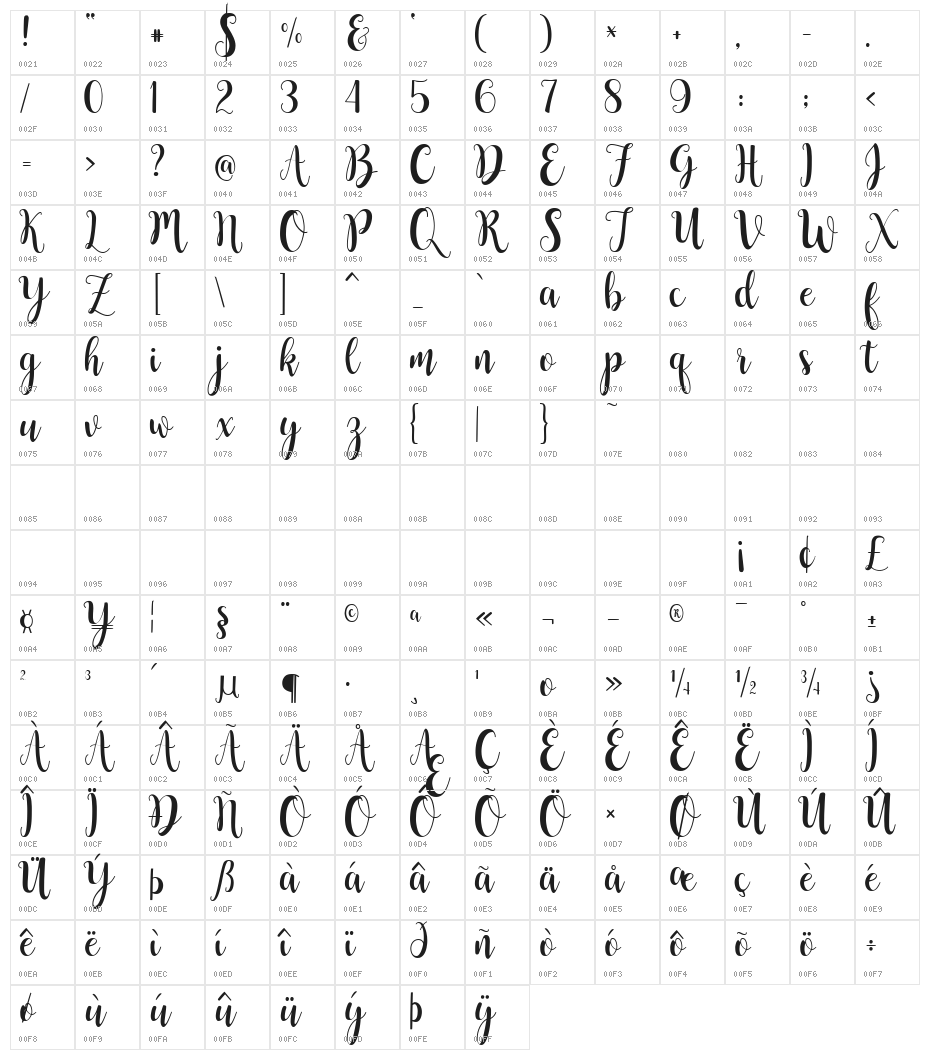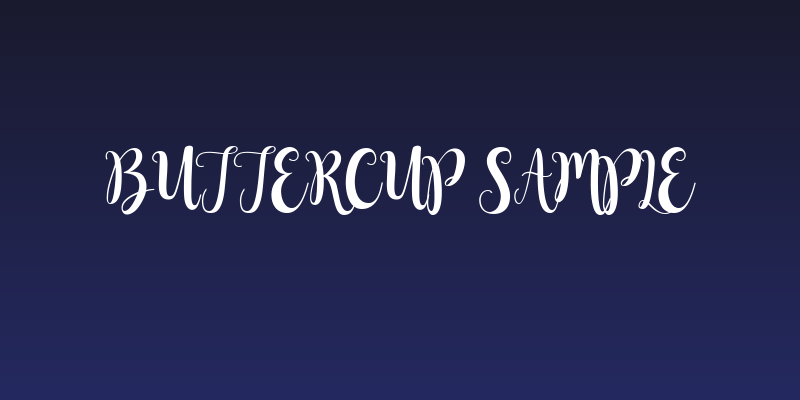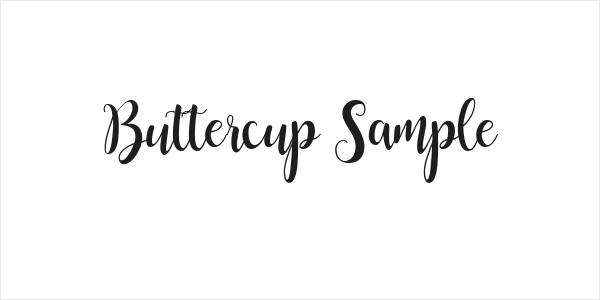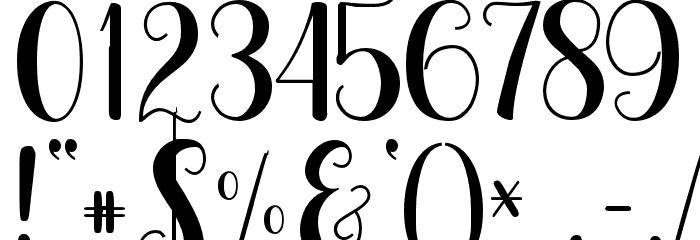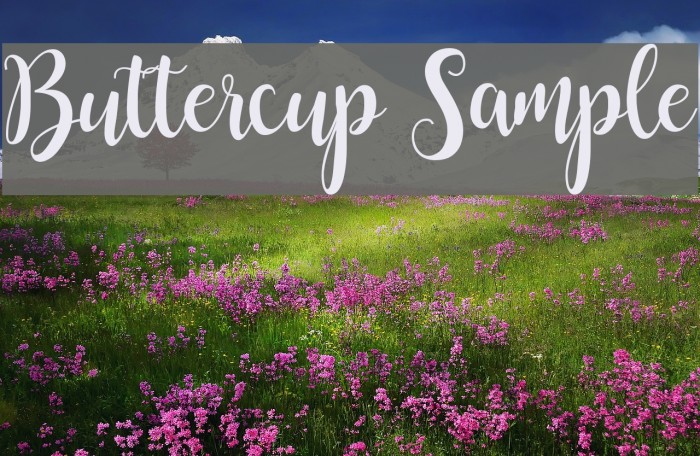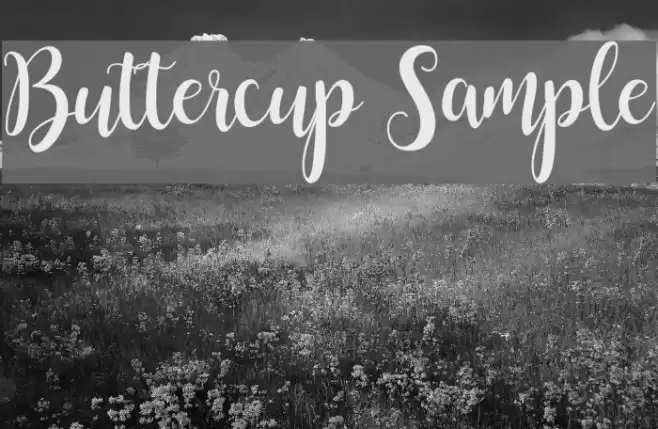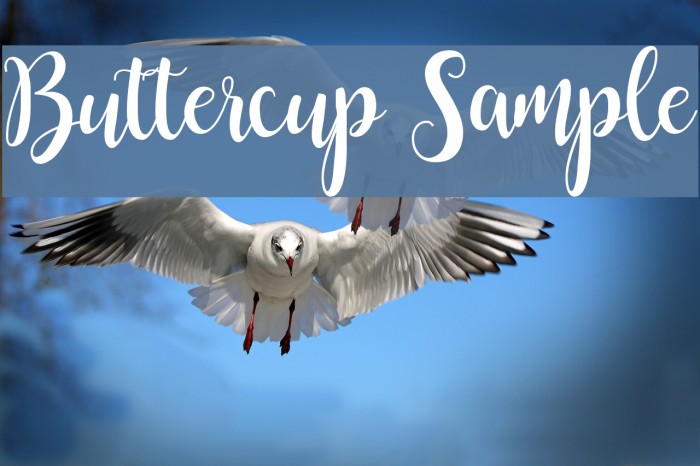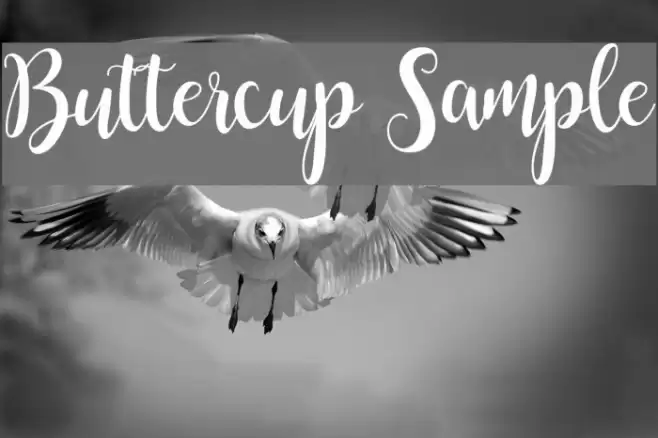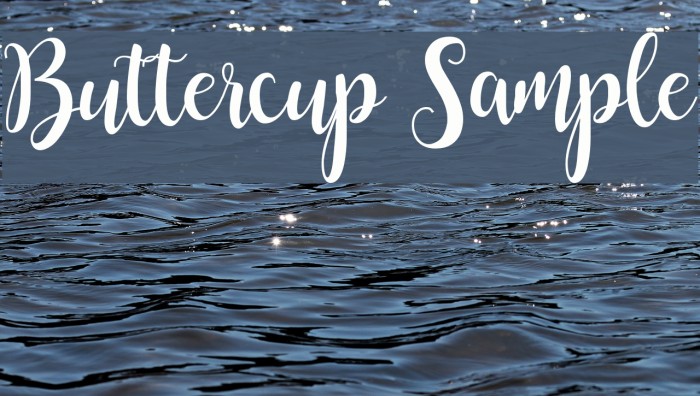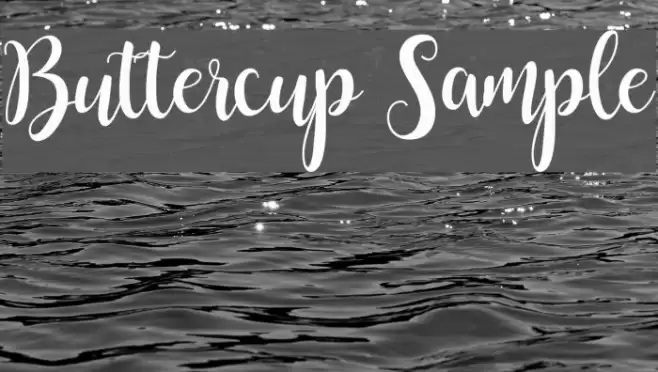
Buttercup Sample Font
Buttercup Sample Description
This font features a flowing, cursive style with elegant loops and swirls, giving it a handwritten appearance. The uppercase letters are bold and striking, with a consistent stroke width that adds to their legibility. The lowercase letters maintain the same fluidity, with some characters extending below the baseline, enhancing the script's dynamic feel. Numbers are designed with a similar flair, ensuring they blend seamlessly with the alphabet. Special characters are crafted with the same attention to detail, making them suitable for decorative purposes. Overall, this font exudes a sense of sophistication and charm, ideal for projects that require a personal touch.
| Use Case | Logos, Invitations, Decorative text |
| Proposed Projects | Ideal for wedding invitations, greeting cards, branding, and logo design. |